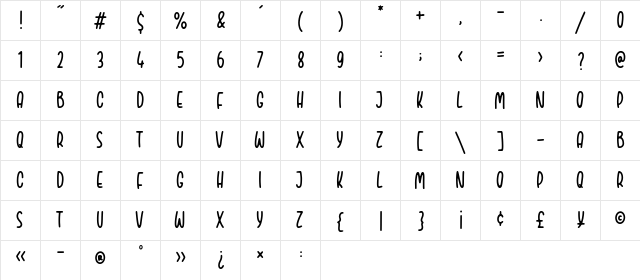
BODYNOTE Regular Font Preview
BODYNOTE Regular
BODYNOTE Regular Font Details
| Designer | Balpirick Studio |
Design Context for BODYNOTE Typeface
BODYNOTE is a composed and adaptable typeface that performs quietly and consistently across a wide range of design contexts.